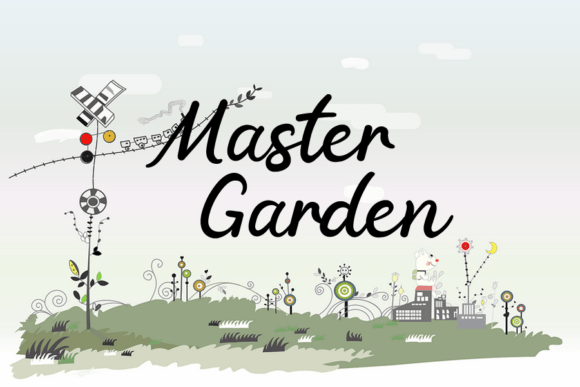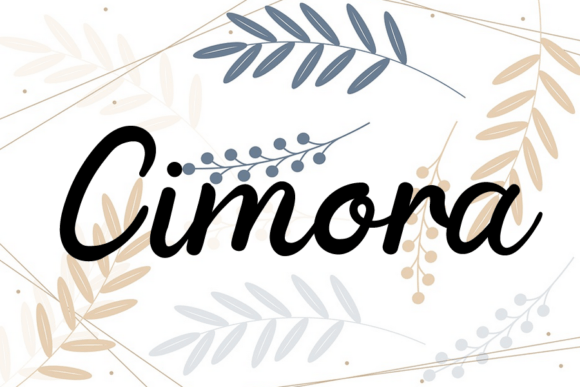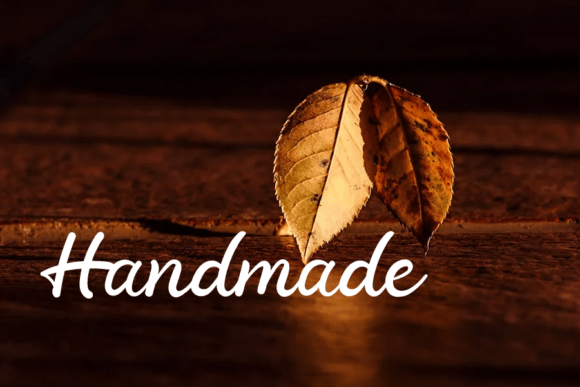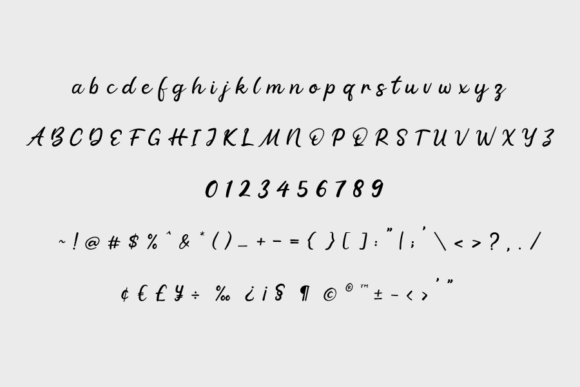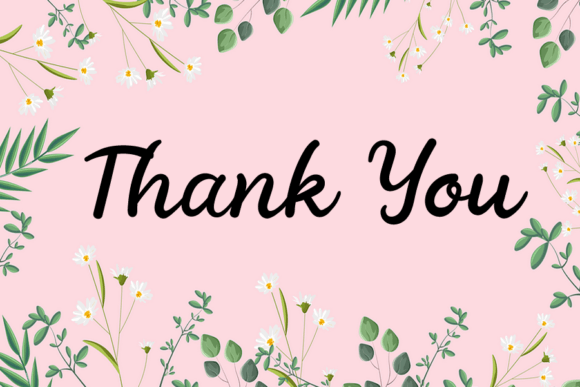
Introduction to Keano Font
Remember that moment when a single font choice transforms your entire design project? It’s like finding the perfect key to unlock the full potential of your creative vision. For designers, discovering the right font can be a game-changer. And, if you’re looking for a versatile and elegant solution, you’re in luck because we’re about to introduce you to the Keano Font.
With its beautifully flowing handwritten characters, the Keano Font is a treasure trove of design possibilities. Its well-balanced style makes it an excellent choice for a wide range of creative projects, from elegant invitations to stunning digital art pieces. Whether you’re working on a personal project or a commercial design, the Keano Font is a valuable addition to your design resource library.
Key Features of Keano Font
- Features a unique and stylish design, making it perfect for use in logos, branding, and other creative applications.
- Designed with high resolution in mind, making it suitable for use in large-format printing and digital displays.
- Perfect for designers and artists looking for a unique and high-quality font to enhance their creative project.
Honest Review: Keano Font
I recently stumbled upon the Keano Font, a free download that caught my eye with its unique style. As a designer, I was excited to dive in and explore its potential for my creative project.
Here are some of the features that stood out to me:
- ✨ High-quality design: The Keano Font boasts a crisp and clean design that’s perfect for a variety of projects.
- ✨ Transparent background: This allows for seamless integration into any design, making it a versatile design resource.
- ✨ Versatile font style: From headings to body text, the Keano Font adapts well to different contexts.
- ⚠️ Limited language support: As a free download, the Keano Font’s language support is limited, which might be a drawback for some designers.
- ⚠️ Not ideal for complex text: While the font looks great for headings, it might not be the best choice for complex or lengthy text.
Overall, I was pleasantly surprised by the Keano Font’s quality and versatility. While it may have some limitations, it’s a great addition to any designer’s toolkit, especially for those working on creative projects or looking for a free design resource.
Keano Font is ideal for creative projects, such as logo design, branding, and typography-based designs. Its high-quality design and transparent background feature make it an excellent choice for designers and artists.